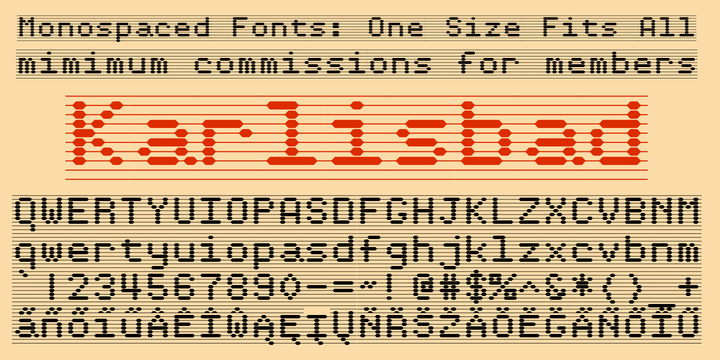
Karlisbad™
by Ingrimayne Type
The Karlisbad Font Family was designed by Robert Schenk and published by Ingrimayne Type. Karlisbad contains 4 styles and family package options. More about this family
Karlisbad is a monospaced font in which lines expand and contract to form letters. The No-Lines styles can be used alone but it was their use in layers that inspired their creation. They can be used to give the letters a different color than the lines or to create an outline or hollow-letter effect.
Designers: Robert Schenk
Foundry: Ingrimayne Type
Original Foundry: Ingrimayne Type